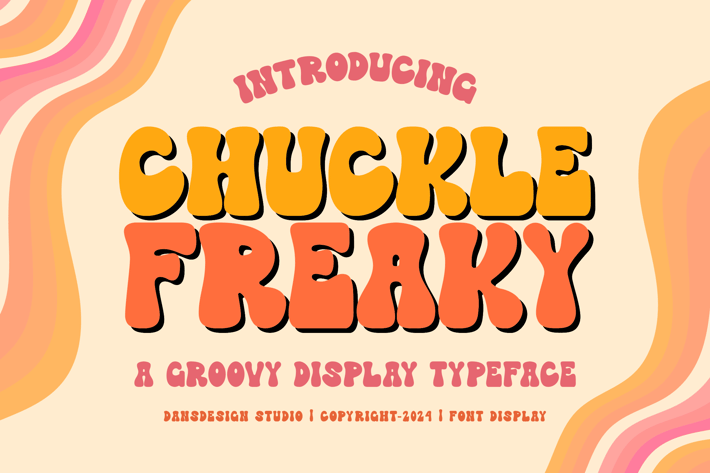
Chuckle Freaky Groovy Graffiti Y2K Font
Chuckle Freaky Groovy Graffiti Y2K Font is a distinct, highly detailed Groovy GRAFFITI Y2k Display Font.
It would make a great choice for exquisite retro-urban designs, business branding, logos, Apparel designs, and more.